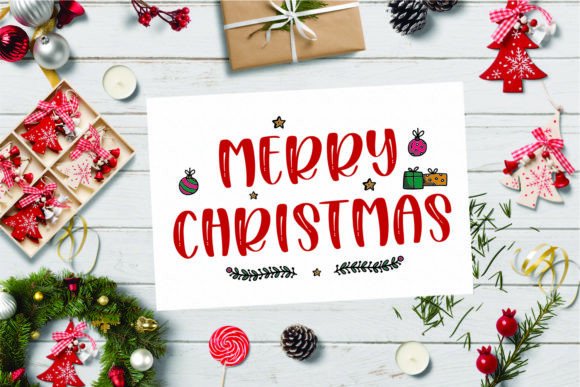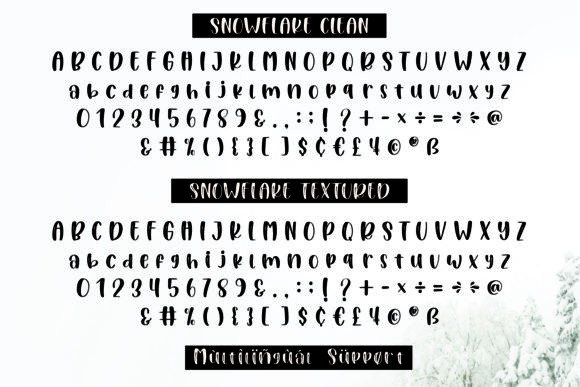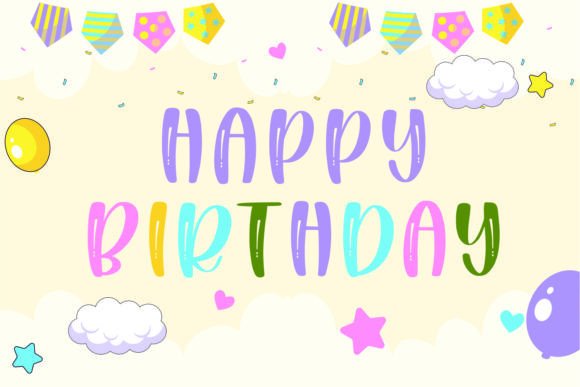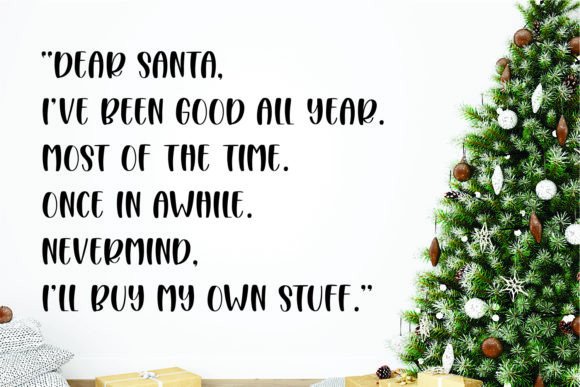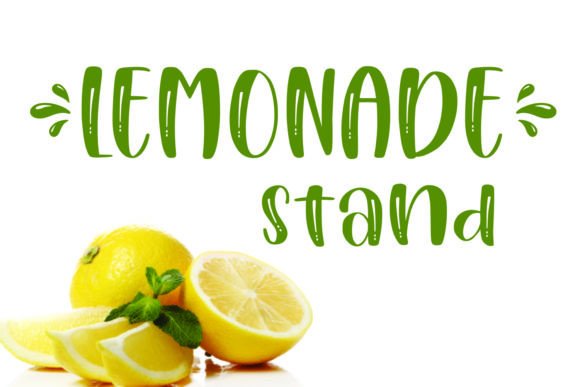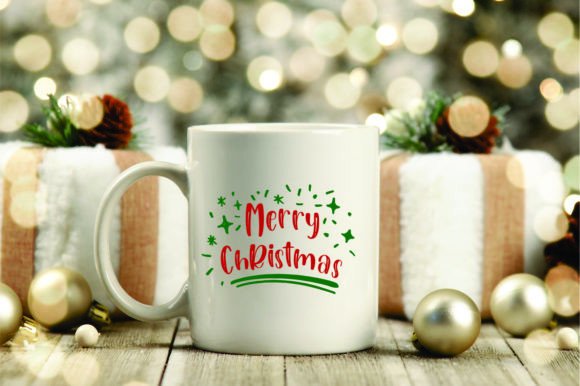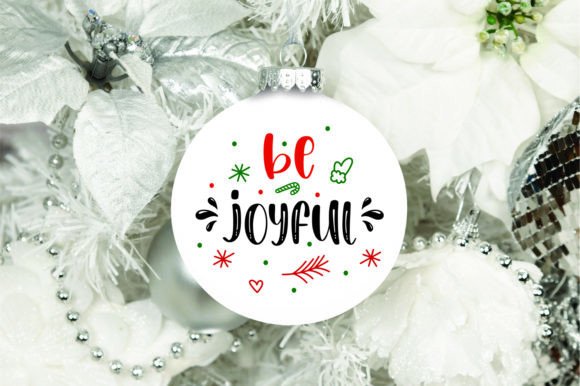
Snowflake Font
Snowflake Font: Cute Handwriting for Festive Christmas Designs
“Snowflake” is an adorable handwritten font that exudes whimsical charm. It’s perfect for festive Christmas designs, adding merriment and joy to your holiday projects.
Key Features of Snowflake Font
• Cute Style: Snowflake brings a playful and endearing feel to designs.
• Christmas-themed: Ideal for holiday projects and festive typography.
• Versatile Use: Suitable for various Christmas-related applications.
Perfect for Various Holiday Projects
Christmas Greeting Cards
Snowflake’s adorable style is ideal for creating heartwarming greeting cards that spread holiday cheer.
Festive Branding and Packaging
Use Snowflake to design charming logo designs and packaging for Christmas-themed products.
Holiday Social Media Content
The font’s whimsical nature makes it perfect for creating engaging social media graphics during the festive season.
Why Choose Snowflake Font?
Snowflake offers more than just cute letters. Here’s why it stands out:
• Infuses projects with a sense of holiday cheer and playfulness
• Creates a cheerful and captivating atmosphere in Christmas typography
• Adapts well to various holiday-themed design applications
Enhancing Your Christmas Designs
By using Snowflake, you open up new festive design possibilities. Its charming style works well in many contexts, from poster designs to website headers. The font’s ability to convey holiday spirit can inspire creative ideas for your seasonal projects.
Snowflake in Modern Holiday Design Trends
This font aligns perfectly with design trends that favor authenticity and warmth during the holiday season. Its handwritten style adds a personal touch that resonates with audiences seeking genuine connections, making it particularly effective for brands targeting a festive, family-friendly image.
If you’re looking for a font that’s both cute and festive, Snowflake is an excellent choice. It’s perfect for adding a touch of Christmas magic to your work, especially for projects that need a playful, holiday feel.
Explore how Snowflake can transform your holiday designs. From branding projects to personal creations, this font brings a merry and endearing quality to your Christmas-themed work.